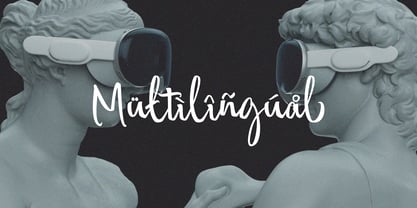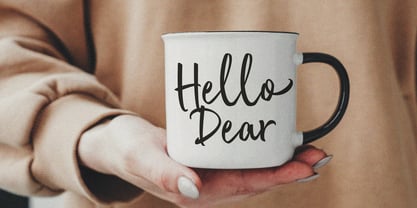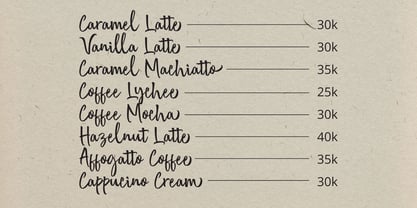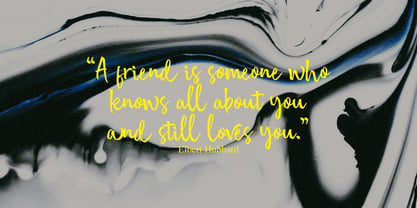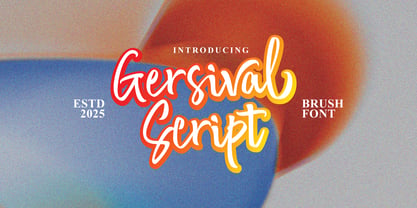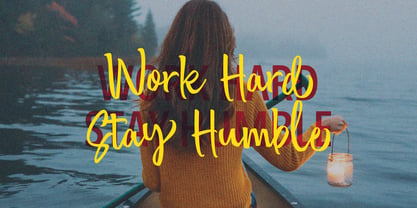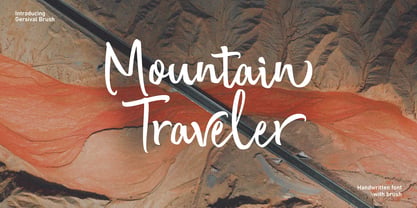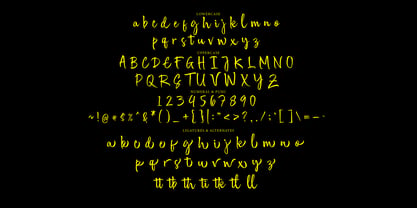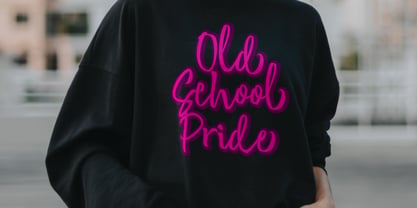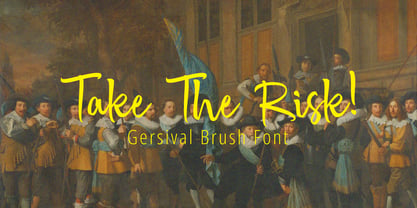
Gersival Script
by Tebaltipis Studio
The Gersival Script Font Family was designed by Dzulka Elfira and published by Tebaltipis Studio. Gersival Script contains 1 styles. More about this family
Gersival Script Inspired by contemporary fashion and streetwear and combination with Hand Lettering style. I'm made with personality touch every single curve. I hope this can make inspire you from your work. and a very bouncy baseline It has a perfectly paired complimentary marker font , and a super handy set of bonus Swash. Ideal for logos, handwritten quotes, product packaging, header, poster, merchandise, social media & greeting cards.
Designers: Dzulka Elfira
Current Foundry: Tebaltipis Studio